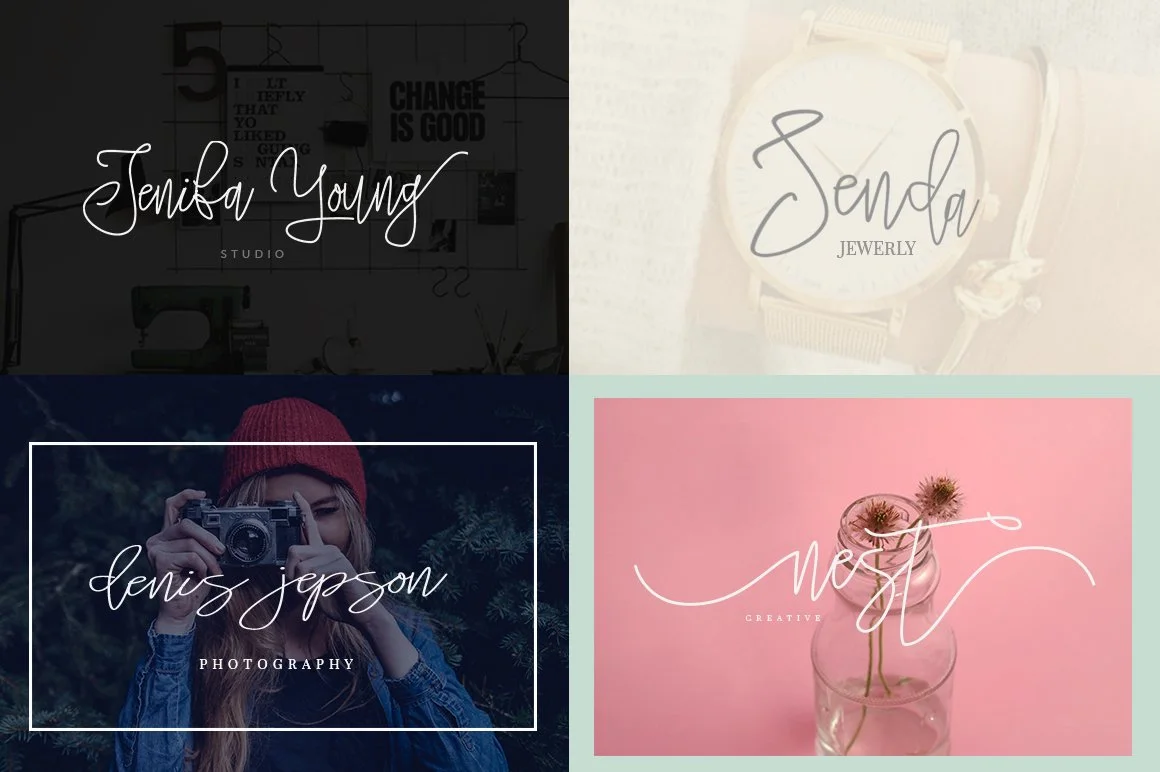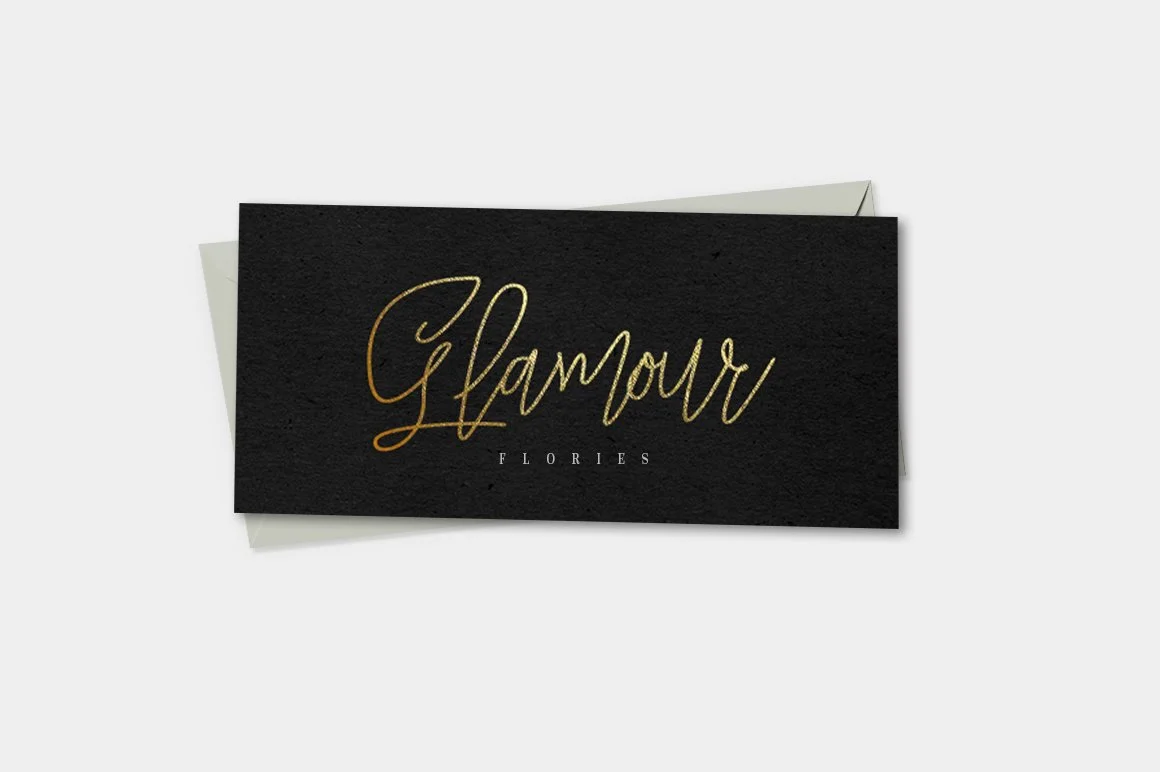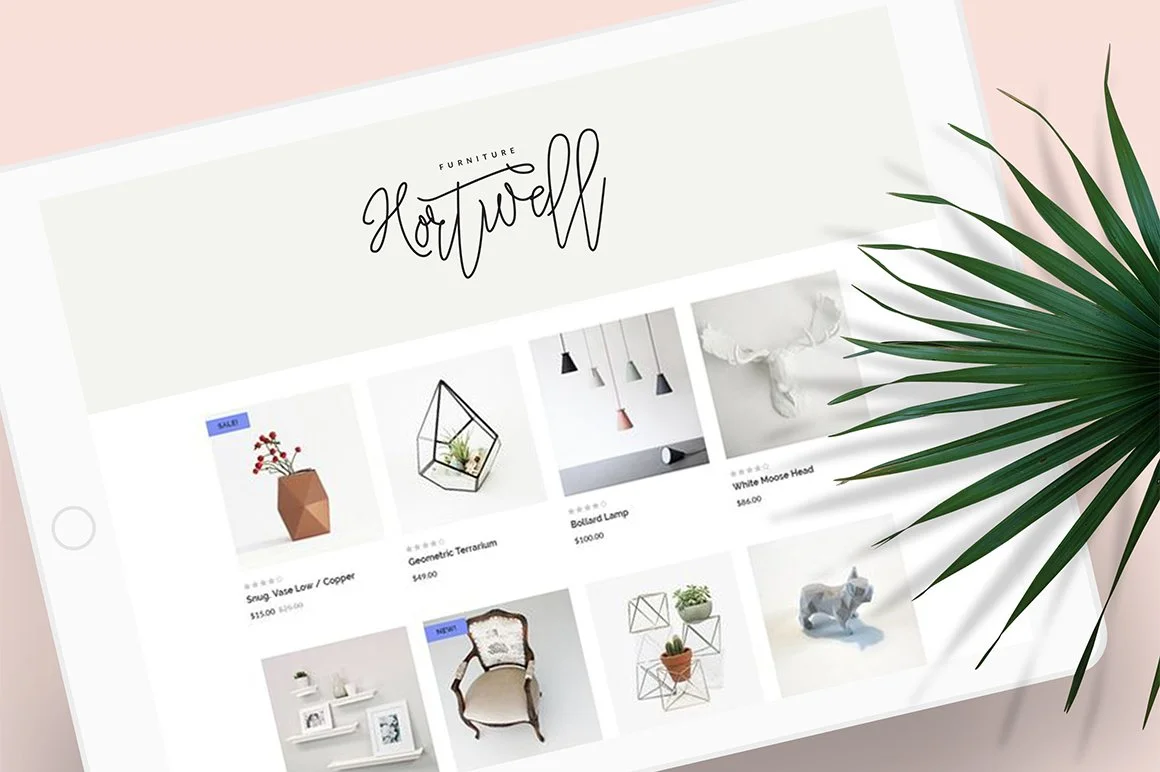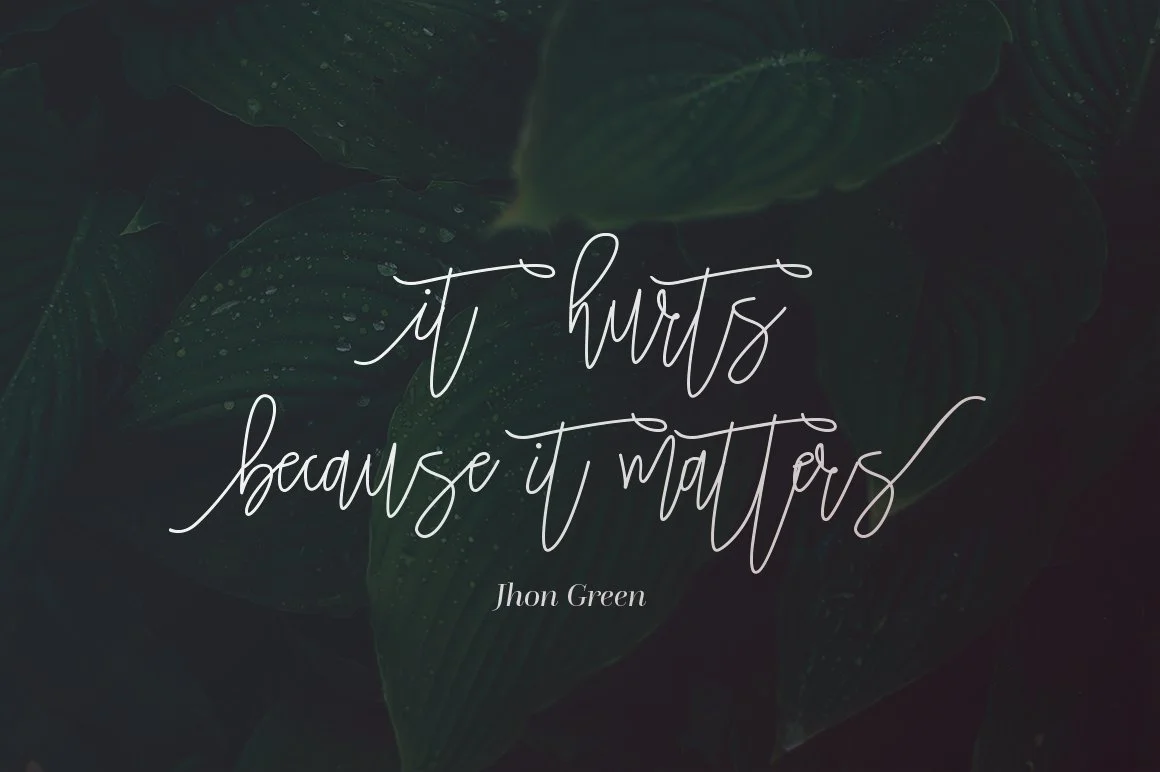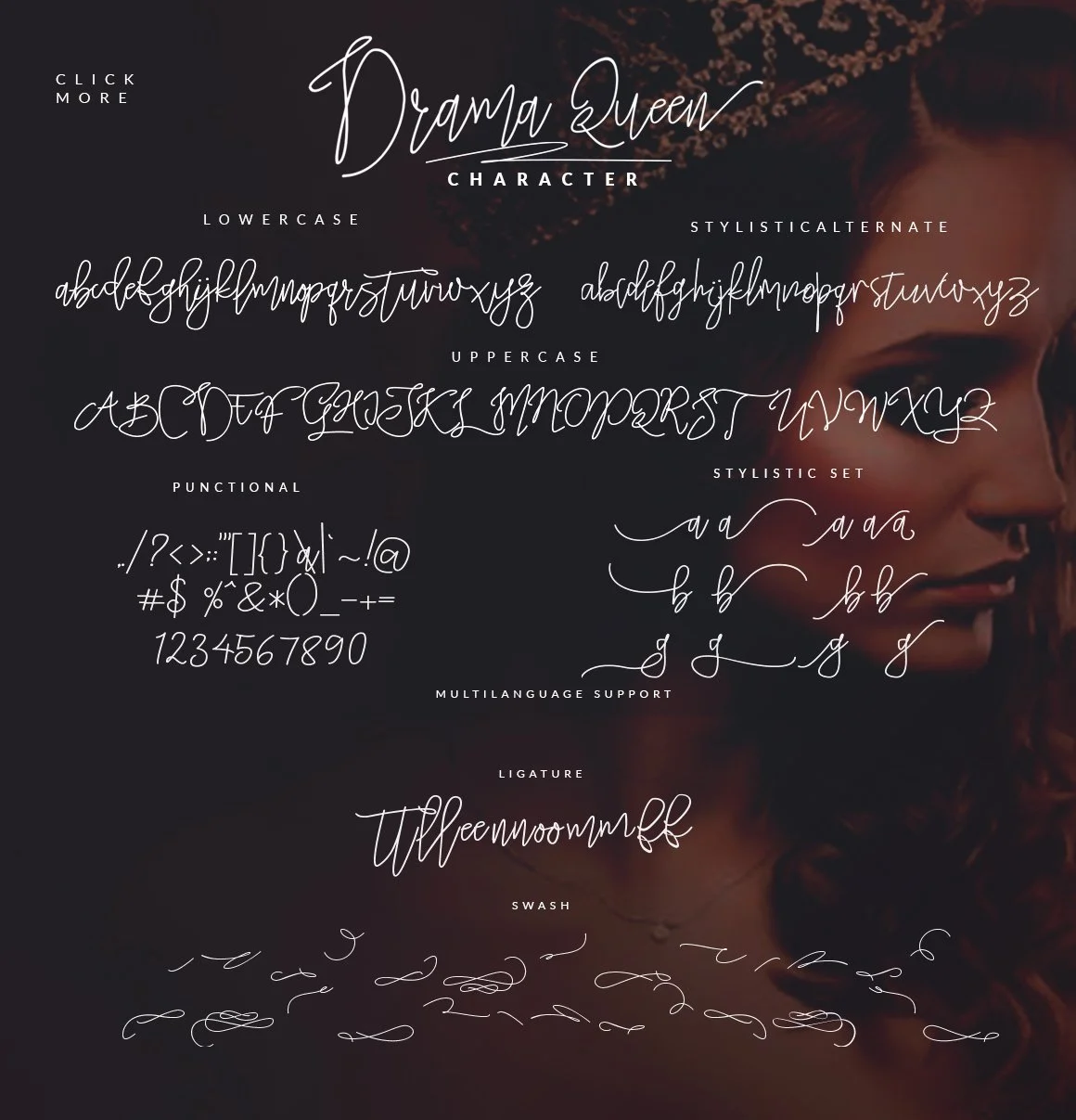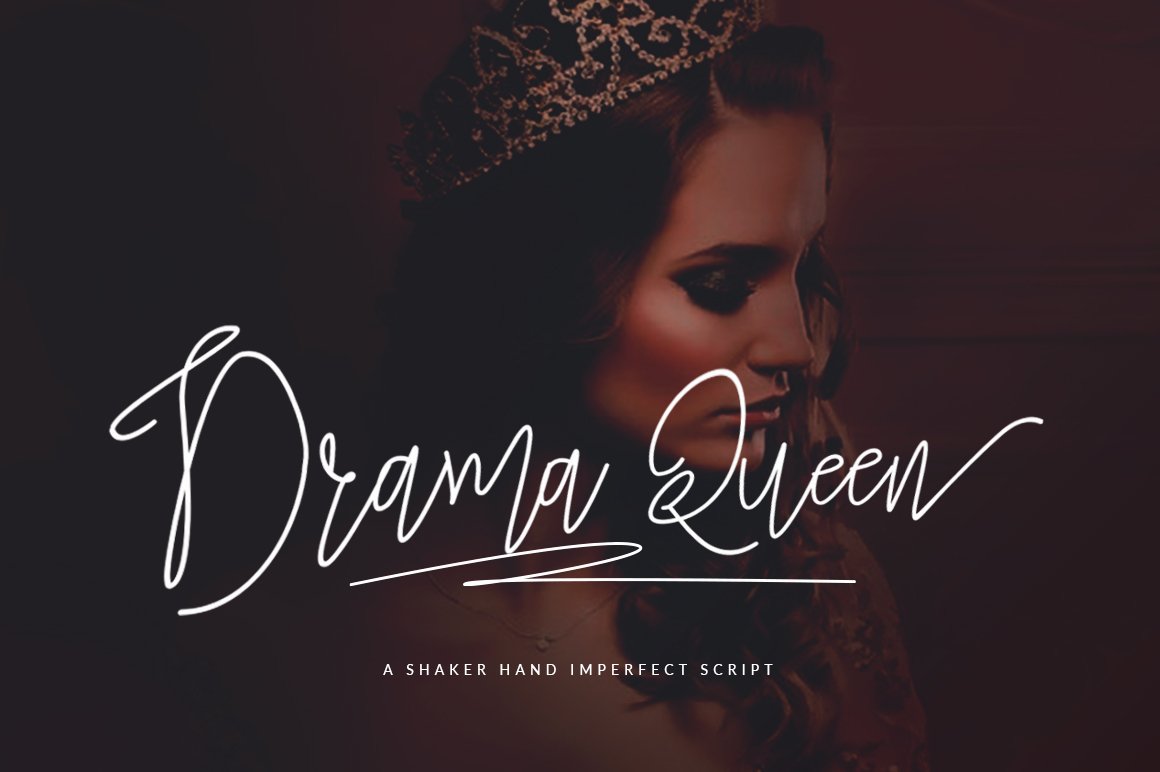
Drama Queen Script Font
Few typefaces manage to balance distinctive character without sacrificing readability with genuine day-to-day practicality. Drama Queen Script is one of them. The typeface brings an elegant, calligraphic sensibility to a broad range of creative disciplines, with optical balance across all weights that holds up whether the work is print-first or screen-first.
In practice, Drama Queen Script proves particularly effective for greeting cards, environmental graphics, logo design, annual reports, fashion editorials. Designers reaching for it find that the type decisions feel resolved rather than laboured — a useful quality when client timelines are tight.
The range of applications extends to brand identity systems, product labels, fragrance labels, bridal materials. That breadth is deliberate: the proportions and spacing were stress-tested across a wide range of mock briefs before the typeface was finalised.
Drama Queen Script sits comfortably alongside both classic and contemporary typefaces in multi-font hierarchies. It takes direction rather than competing for attention — a quality that experienced designers know is harder to find than it appears.
In-house creative teams at consumer brands find Drama Queen Script a reliable choice for projects that demand both personality and restraint. The design avoids the self-conscious quirkiness that dates quickly, settling instead for considered distinctiveness that holds up over time.